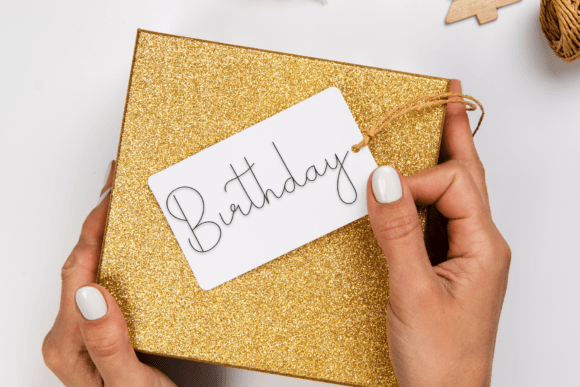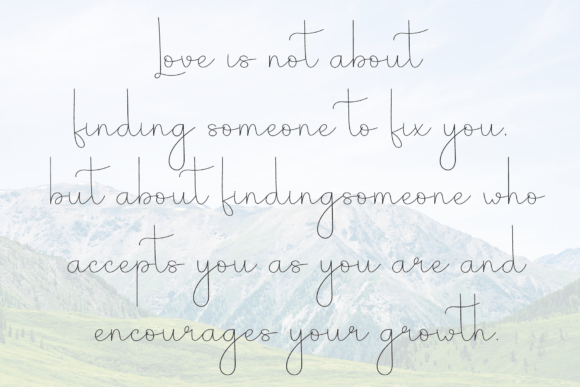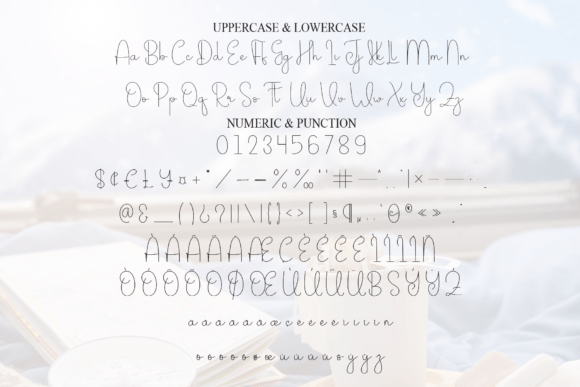
Introduction to Sleetday Vacation Font Font
Fonts play a crucial role in design, and the Sleetday Vacation Font font is a typeface that brings both character and versatility to any project. Whether you’re working on a branding project, a website, or a print design, the Sleetday Vacation Font font offers a unique style that can elevate your work.
Introducing a delightful and personable hand-drawn display font that effortlessly exudes warmth and charm.
With its appealing and playful aesthetic, this font is impeccably suited for crafting captivating wedding invites, heartwarming greeting cards or any design project that could benefit from a sprinkle of whimsy and joy .
Key Features of Sleetday Vacation Font Font
Why Choose Sleetday Vacation Font Font?
The Sleetday Vacation Font font is more than just a typeface – it’s a design tool that helps you communicate your message with style and clarity. Its unique character set and versatile design make it suitable for a wide range of applications, from elegant invitations to bold headlines.
With its carefully crafted letterforms and balanced proportions, the Sleetday Vacation Font font ensures readability and visual appeal across all mediums.
What makes Sleetday Vacation Font font special?
The Sleetday Vacation Font font stands out with its unique design, exceptional readability, and versatility across various design applications.